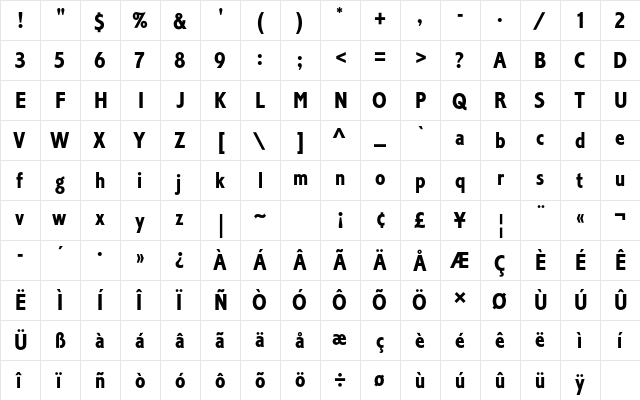
Corinthian Std Bold Condensed
| Designer | Colin Brignall |
Design Context for Corinthian Std Typeface
Corinthian Std is a composed and adaptable typeface that performs quietly and consistently across a wide range of design contexts. Its bold stroke weight gives it real presence on the page. The condensed width makes it efficient for tight spaces without sacrificing legibility.